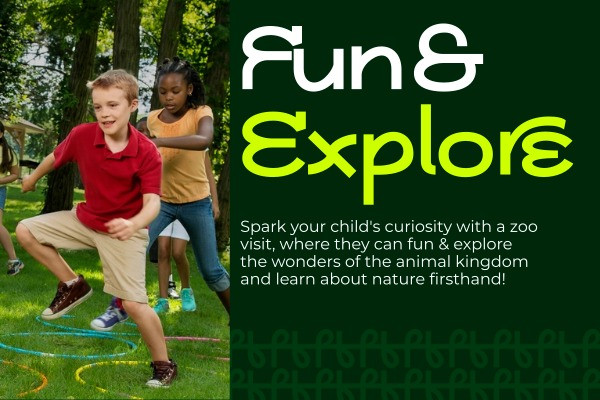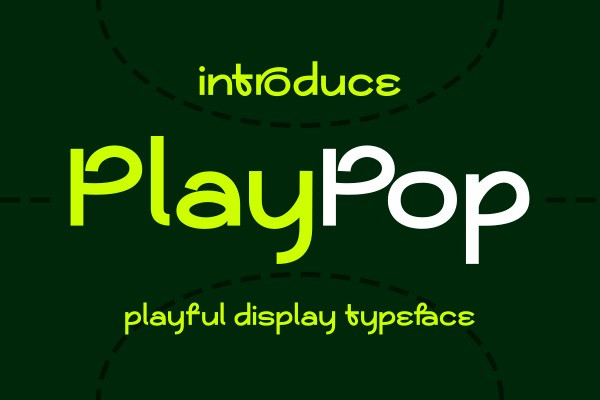
PlayPop Font
Playpop Font, the ultimate fun and playful display typeface! Designed to bring smiles and energy, Playpop is perfect for anything that needs a whimsical, lighthearted touch. Whether it’s headlines, children’s books, quirky branding, or social media graphics, this font makes every word a celebration.